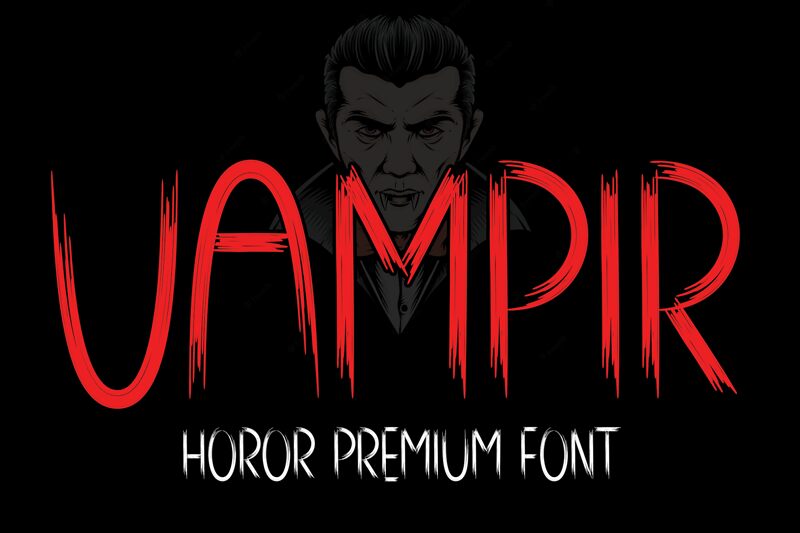
Vampir
Vampir font by Scratchones is an edgy and sinister display typeface that evokes a truly scary emotion with each letter typed. Create text characterized by sharp edges and dramatic spikes that feel like thorns which form quite the dangerous environment. The gothic-inspired letters appear as if separated at their base adding a sense of nervousness in combination with other elements. When put together, they all form terrifying words that are sure to grab attention.
This scary free font is great for headings in horror-themed applications like games, movies, or TV shows. Posters or flyers advertising Halloween events can also highly benefit from it; book and magazine covers can enjoy the same sophistication that’s full of mystery as well.